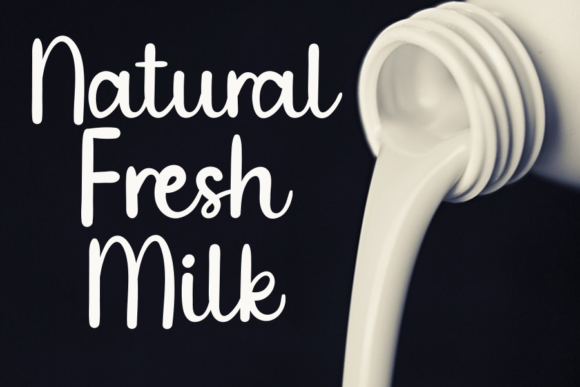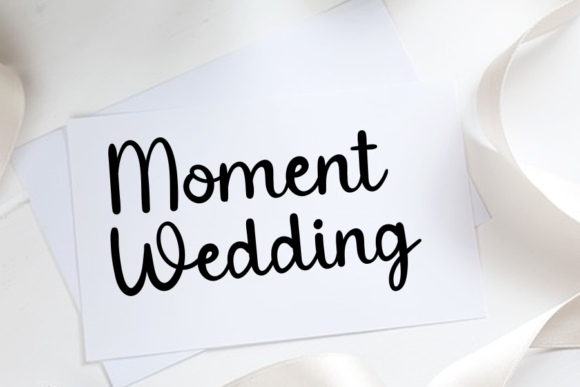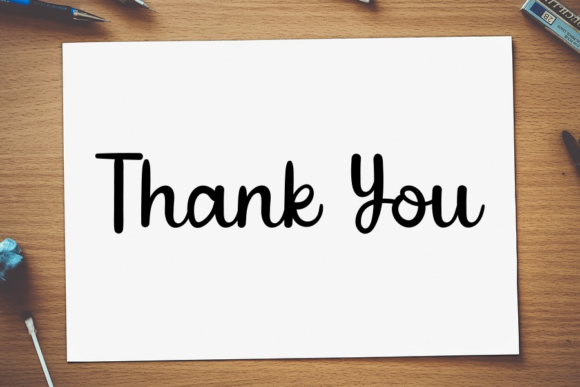
Introduction to Milky White Font
Have you ever been stuck on a creative project, staring at a blank page, desperately searching for the perfect design element to bring it all together? For many designers, this is a familiar frustration. But what if you stumbled upon a font that effortlessly elevates your work, infusing it with a touch of elegance and sophistication?
Enter the Milky White Font, a stylish and incredibly elegant script font that has been turning heads in the design world. Its versatility makes it a valuable asset for designers, from wedding invitations and thank you cards to logos and business cards. Whether you’re working on a high-end project or a personal creative endeavor, the Milky White Font is an exceptional design resource that’s sure to leave a lasting impression.
One of the standout features of this font is its ability to work seamlessly with a transparent background, allowing your design to shine in all its glory. And the best part? It’s available for free download, making it an accessible high-quality design element for designers of all levels.
Key Features of Milky White Font
- High-quality, vector-based font with a transparent background, ideal for creative projects requiring a clean and minimalist design.
- Perfect design resource for creating visually appealing graphics, logos, and typography due to its unique and modern aesthetic.
- Unique characteristic: The font’s subtle texture and creamy feel evoke a sense of softness and elegance, making it perfect for feminine or vintage-inspired designs.
- Designed to be versatile and easily customizable, allowing users to adjust the font’s size, color, and style to suit their specific design needs.
Honest Review: Milky White Font
I recently came across the Milky White Font, and I have to say, it’s been a game-changer for my creative projects. The high-quality design makes it a perfect addition to any project that requires a clean and elegant touch.
- ✨ The transparent background is a major plus, allowing for seamless integration into any design.
- ✨ The font’s versatility makes it suitable for a wide range of creative projects, from digital art to print materials.
- ⚠️ The font may not be suitable for projects that require a bold or dramatic look, as it’s more geared towards subtle and elegant designs.
- ⚠️ Some users may find the font’s size limitations restrictive, especially for larger projects.
Overall, I’m thoroughly impressed with the Milky White Font. Its high-quality design and versatility make it an excellent addition to any design resource collection. While it may have some limitations, the benefits far outweigh the drawbacks, making it a worthwhile investment for any designer looking to elevate their creative projects.
Tips for Getting the Most Out of the Milky White Font
The Milky White Font is ideal for a variety of creative projects, including wedding invitations, branding materials, and marketing collateral. Its transparent background and high-quality design make it a versatile design resource that can be used in a range of applications.
Is the Milky White Font suitable for high-resolution printing?
Yes, the Milky White Font is designed to be high-quality and suitable for high-resolution printing. The font is optimized for use at large sizes and can be scaled up to 300 DPI or higher without losing any clarity or definition. This makes it an ideal choice for creative projects that require a clean and professional look.